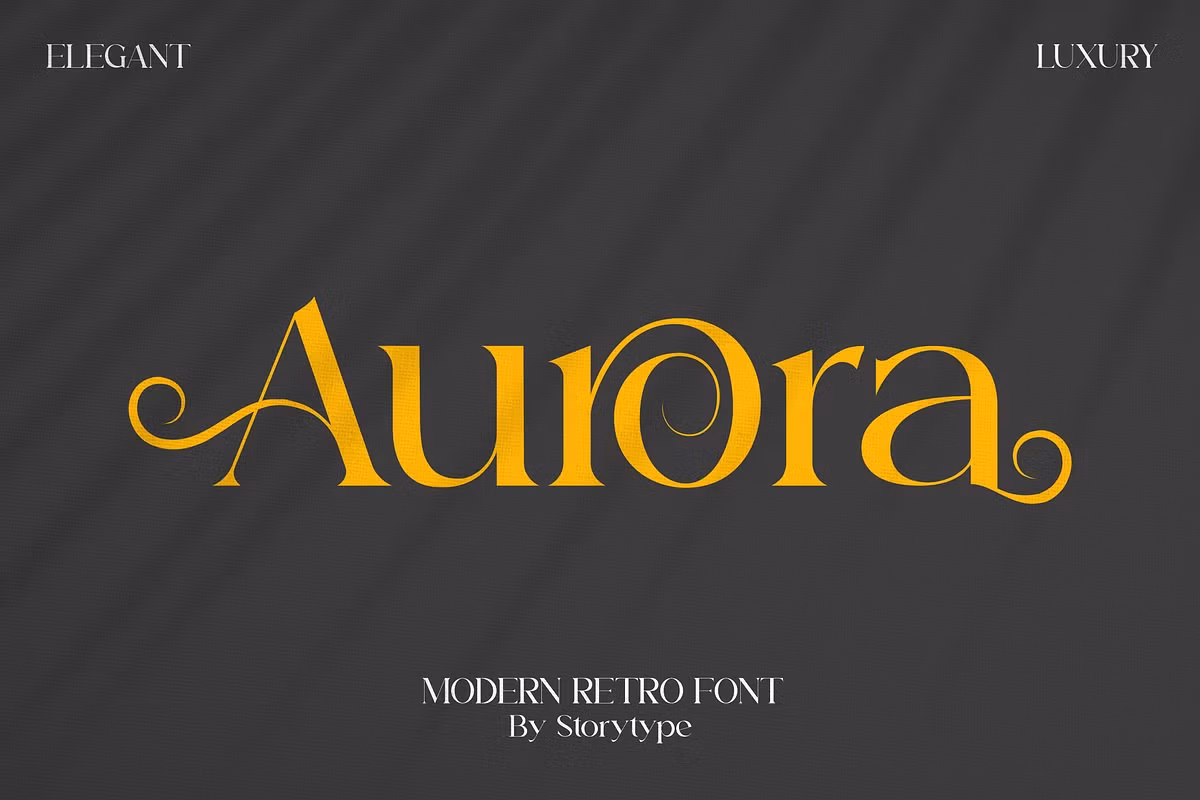
You must purchase this font for commercial use. However, you can download Aurora Modern Retro Font Free Download for testing purposes. Aurora is a stylish modern retro font that combines bold vintage design with contemporary flair. Ideal for creating eye-catching logos, posters, branding, social media content, and packaging, this font brings a nostalgic yet modern vibe to your projects.
With its geometric letterforms, sharp edges, and retro-inspired details, Aurora captures the essence of classic typography while giving it a fresh, modern twist. Whether you’re designing for a retro brand, crafting a cool event poster, or adding a vintage touch to your project, Aurora Modern Retro Font Free Download offers a dynamic and memorable design option.